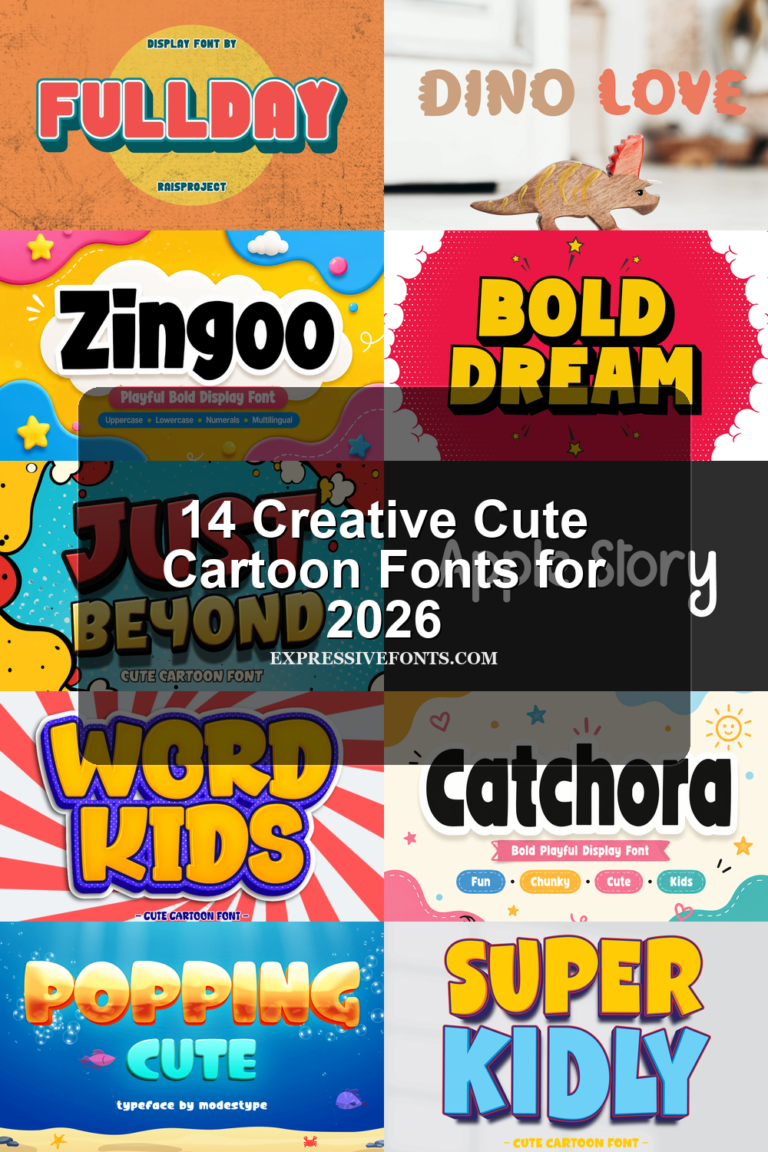
14 Creative Cute Cartoon Fonts for 2026
Cute Cartoon Fonts can bring instant personality to children’s projects, playful branding, merchandise, packaging, posters, and social graphics. This collection ranges from chunky rounded display faces and energetic comic styles to casual handwritten lettering, organic novelty designs, and retro dimensional treatments. Whether you need a bold headline or a softer storybook touch, these fonts offer…